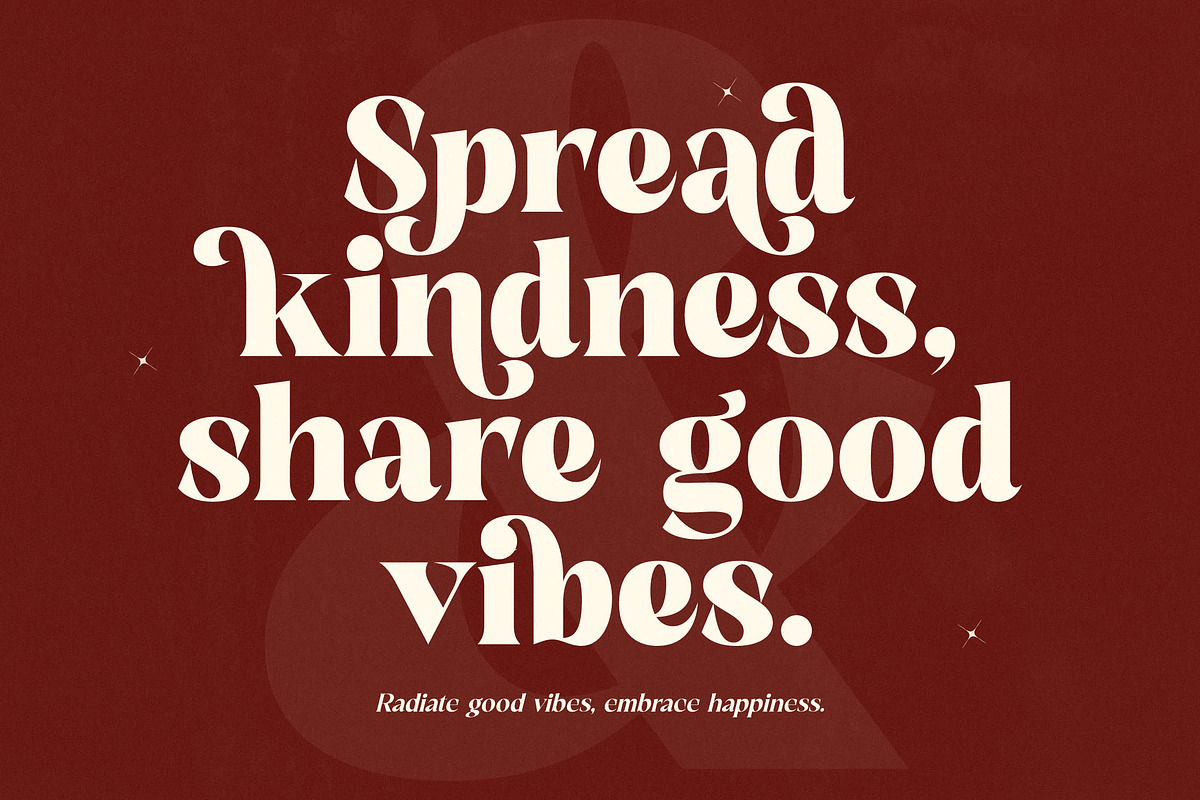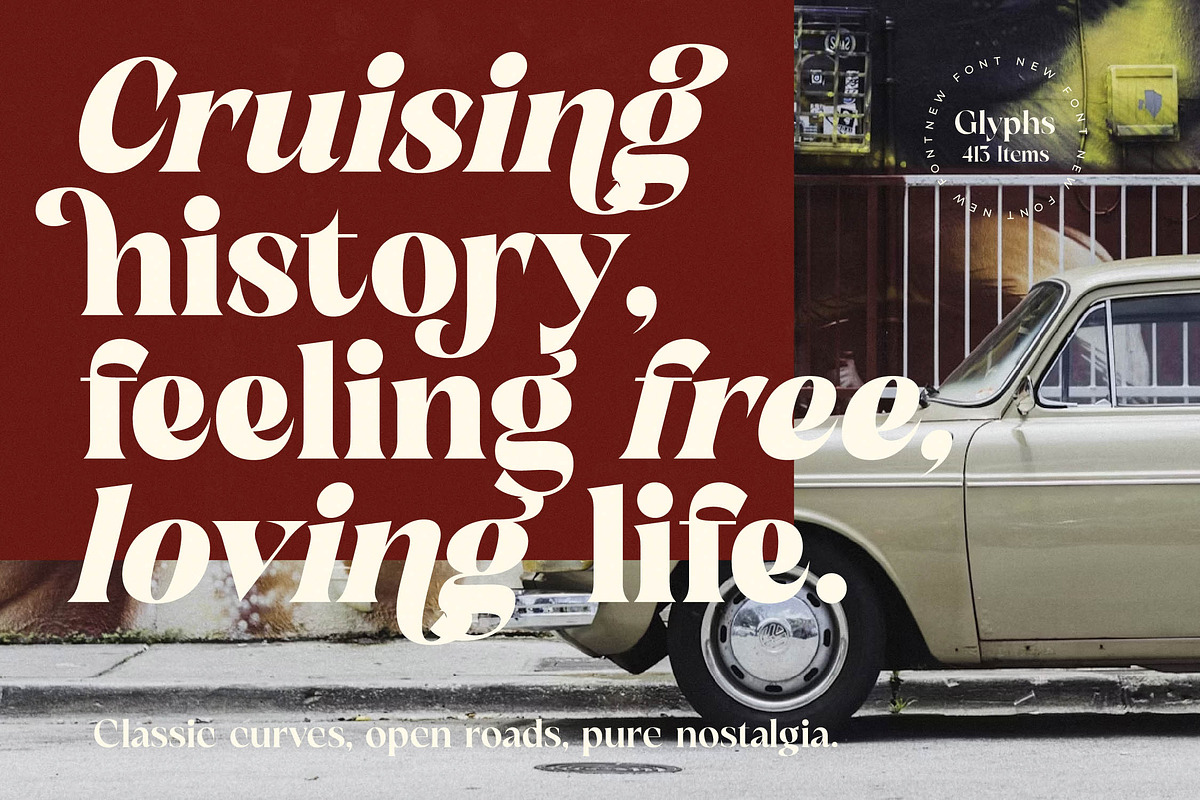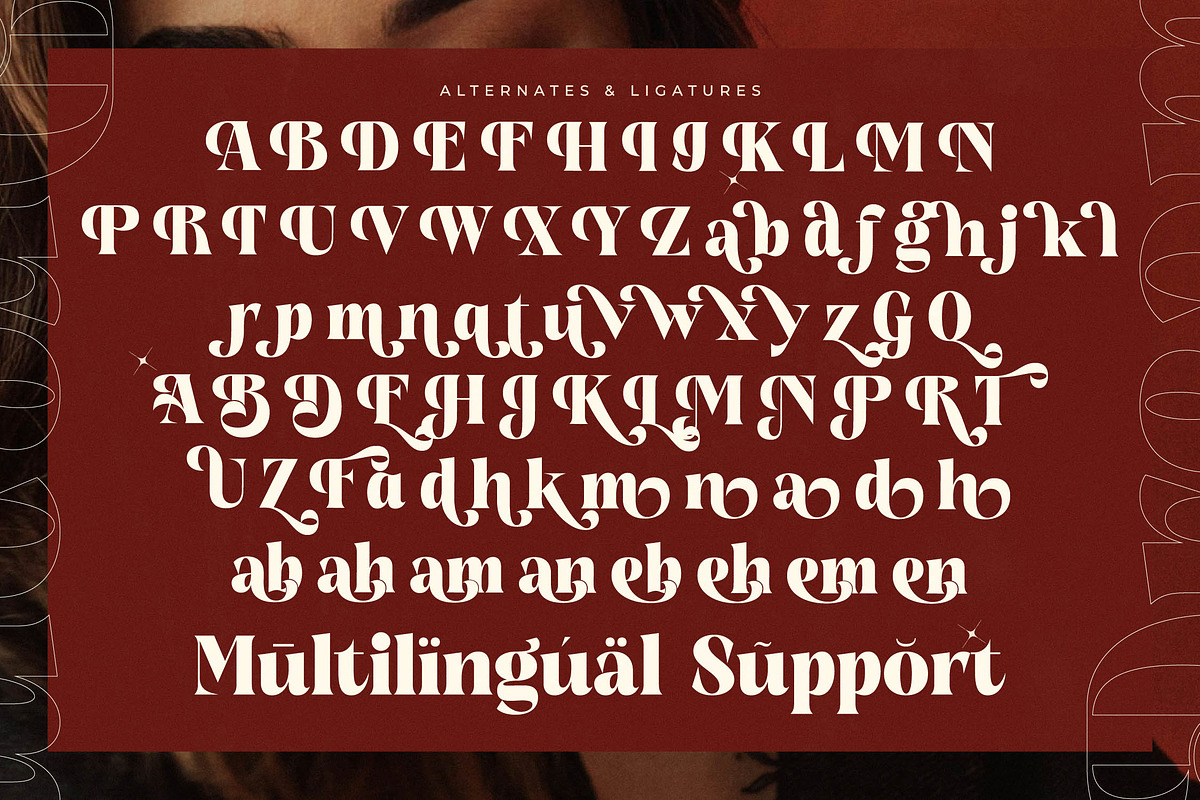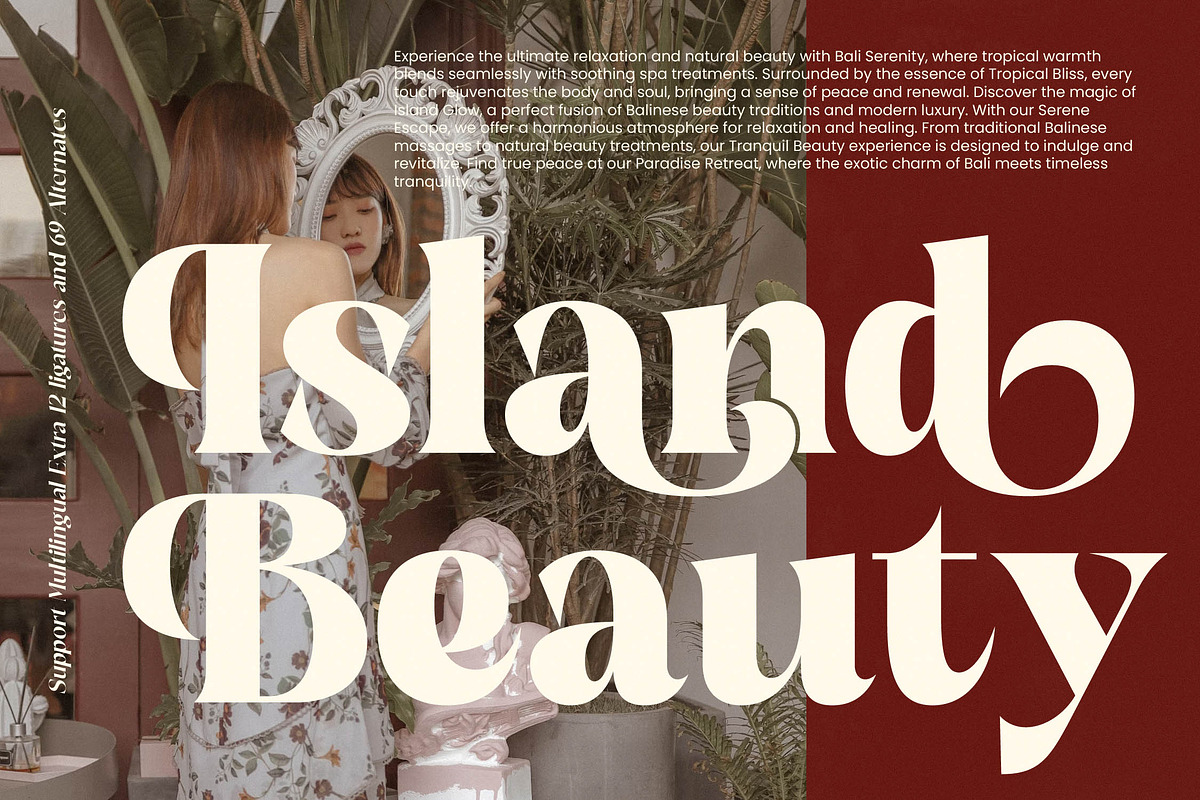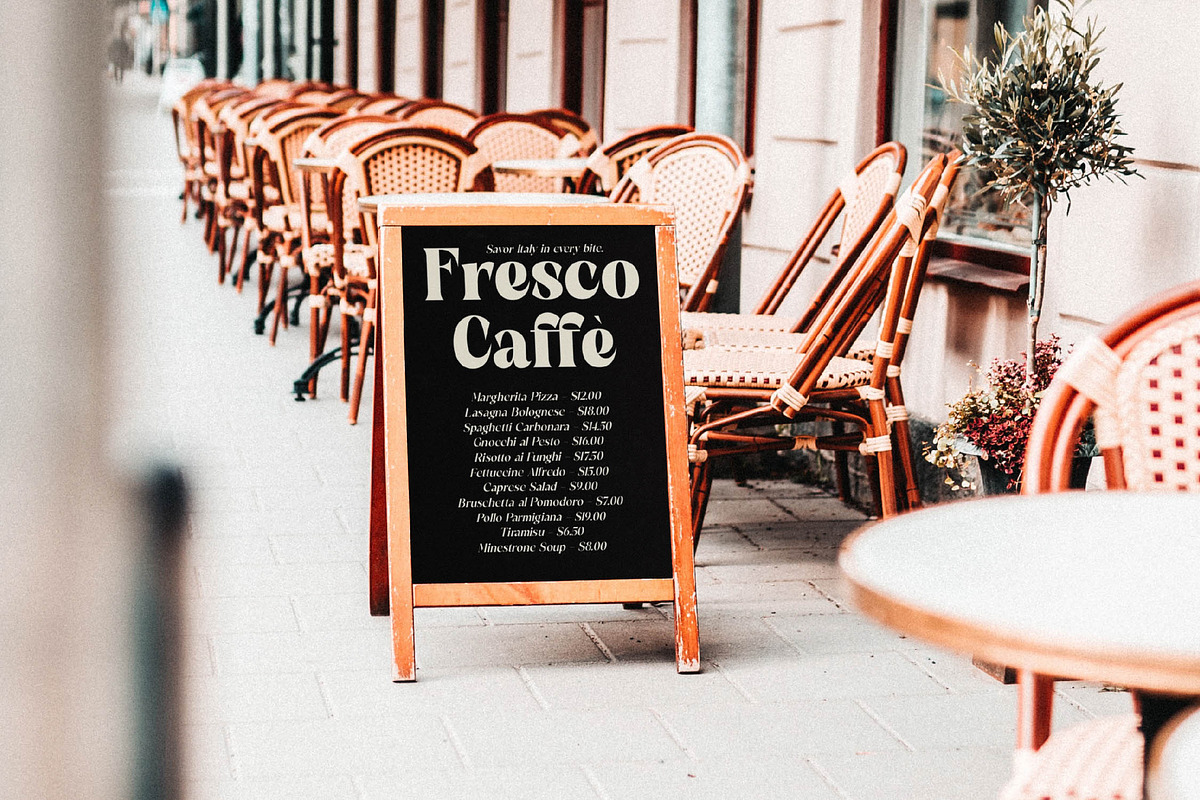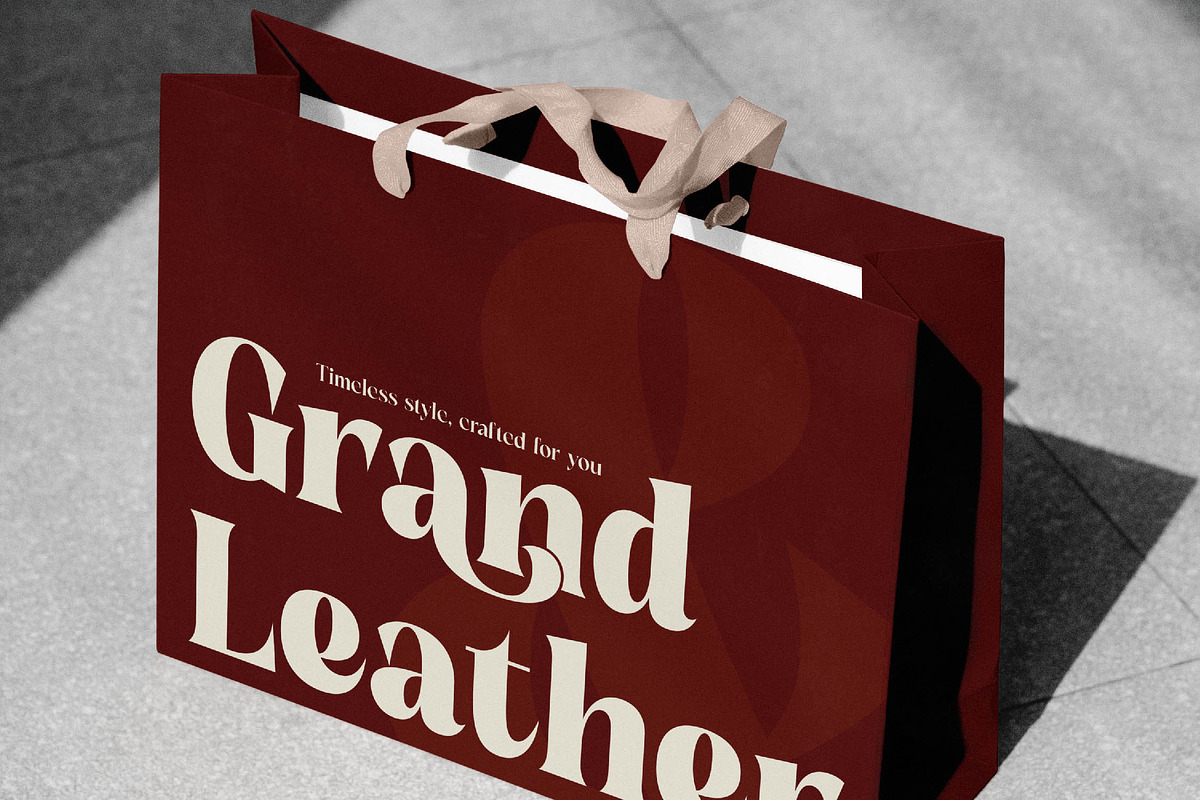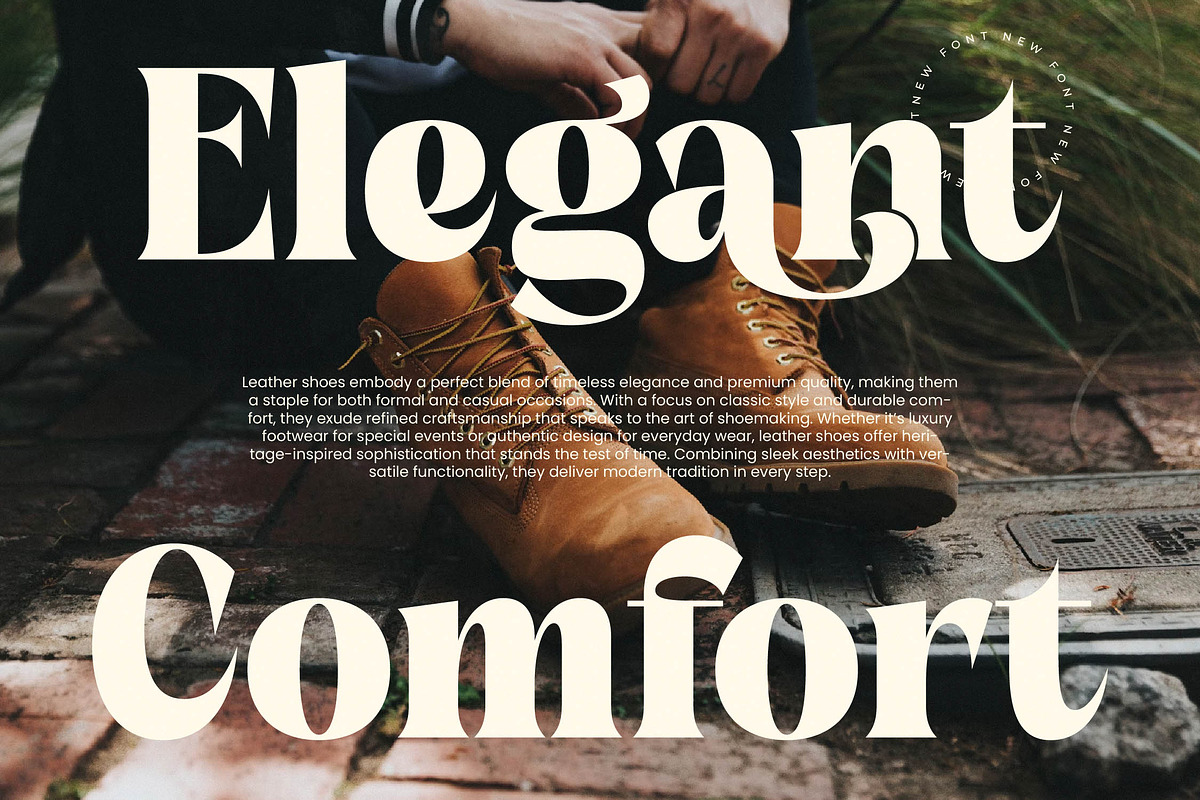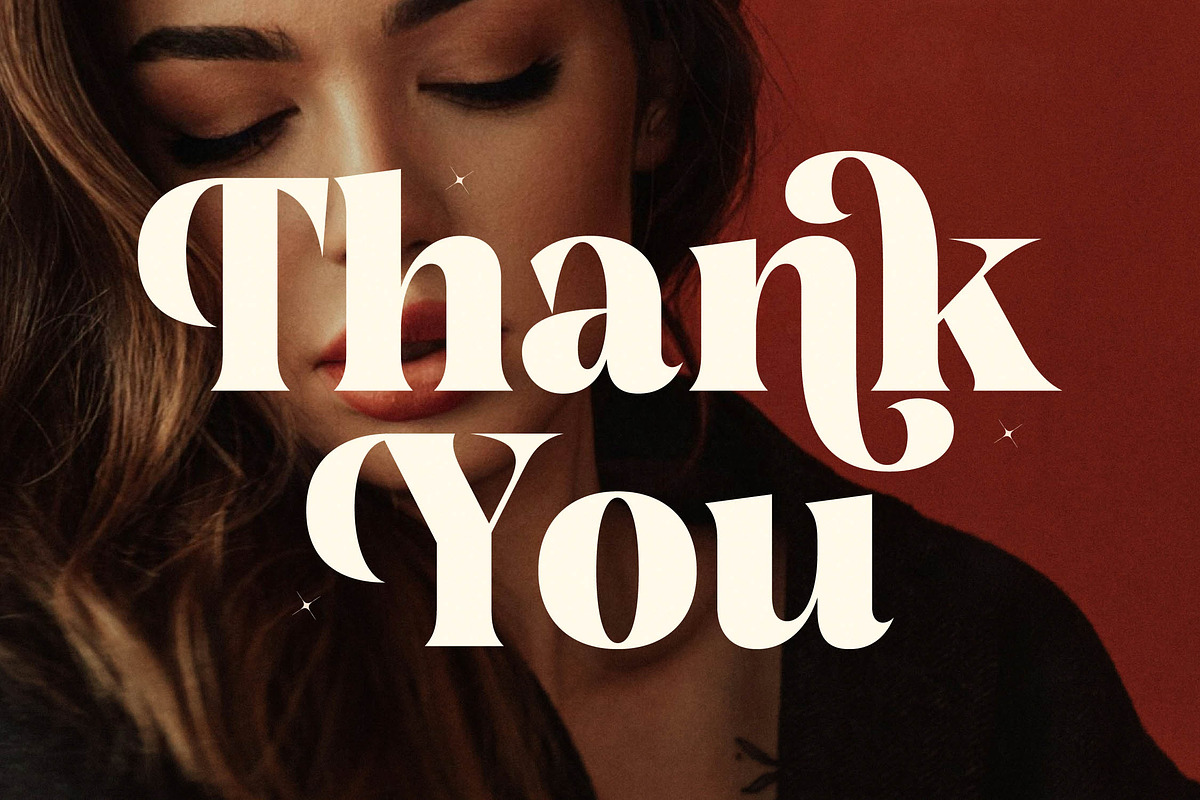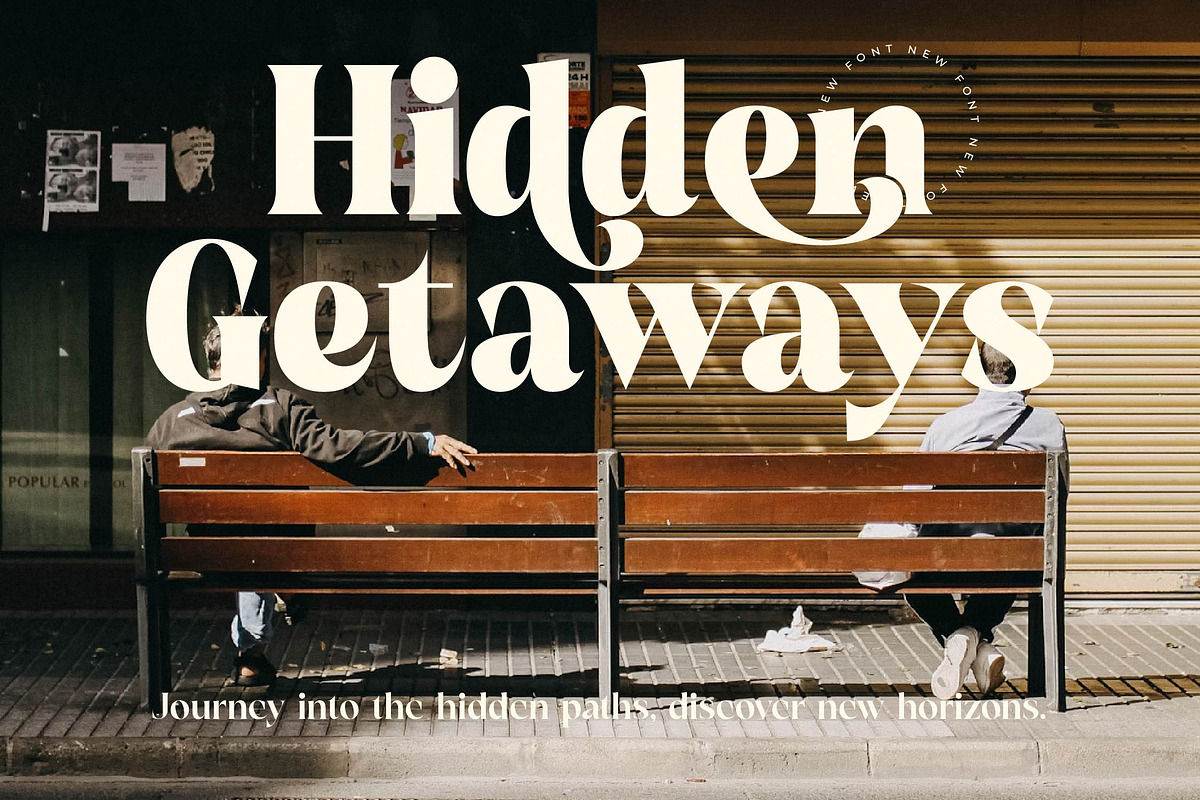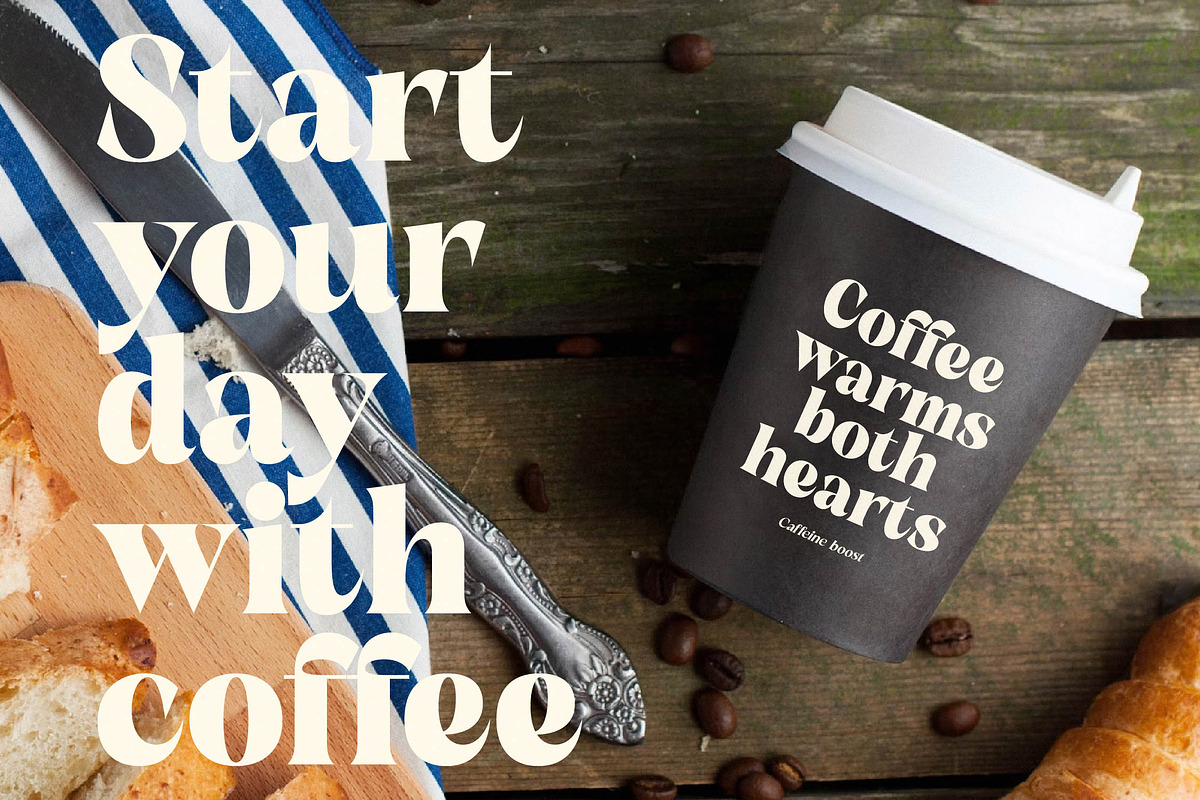
Bugeta Dream Modern Editorial Serif
Elevate your design aesthetic with the captivating allure of Bugeta Dream, a font that bridges the gap between classic sophistication and contemporary flair. This masterpiece is designed to make every word feel like a curated piece of art on the page.
Drawing inspiration from the golden era of high-fashion magazines and the timeless elegance of vintage boutique signage, this typeface captures a dreamy, nostalgic atmosphere. It reflects a world where every detail matters, blending fluid curves with structured stems to create a harmonious visual rhythm.
Exuding an aura of confidence and grace, this modern serif display is the ultimate choice for projects requiring a touch of luxury typography. Its high-contrast serif design ensures a striking editorial font presence, delivering a significant branding impact that resonates with discerning audiences.
Perfectly aligned with the current modern serif trend, this typeface meets the demand for editorial display fonts that offer both versatility and distinction. It embraces the shift toward character-driven typography, allowing designers to break away from sterile minimalism in favor of expressive, soulful designs.
Whether you are crafting a standout logo design or developing a cohesive identity for branding, this font performs flawlessly across diverse media. It is exceptionally suited for high-end editorial layouts, premium packaging, romantic wedding stationery, and the fast-paced world of fashion advertising.
The versatility is further enhanced by a rich set of ligatures and alternates that allow for custom typographic flourishes. With included swashes, full multilingual support, and a wide array of international characters, it provides the technical flexibility needed for global design projects.
- Ligature 12 Alternate 69